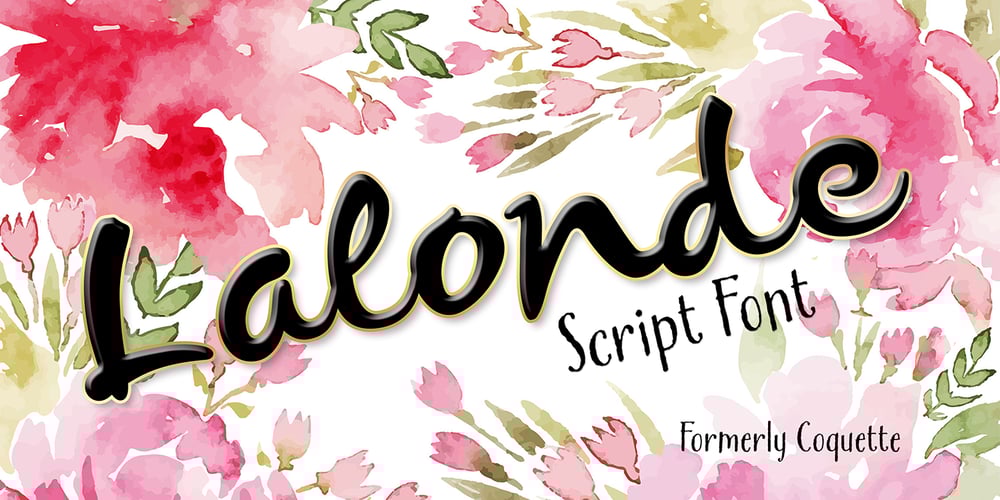
Lalonde Font Family was designed by Diana Craft and published by The Thrill of Design. Lalonde contains 1 styles and family package options. Lalonde Font Family has great readability and can be used for: logos, call outs and headlines for advertising, wedding invitations, t-shirts, signage, scrapbooking, posters, badges, etc. Lalonde is a modern hand-drawn script font and is available with two formats OTF and TTF and with (Latin-1 Supplement) ÀÁÂÃÄÅÆÇÈÉÊËÌÍÎÏÝ ÑÒÓÔÕÖØŒÙÚÛÜ àáâãäåæçèéêëìíîïñòóôõöðøœùúûüýÿ.